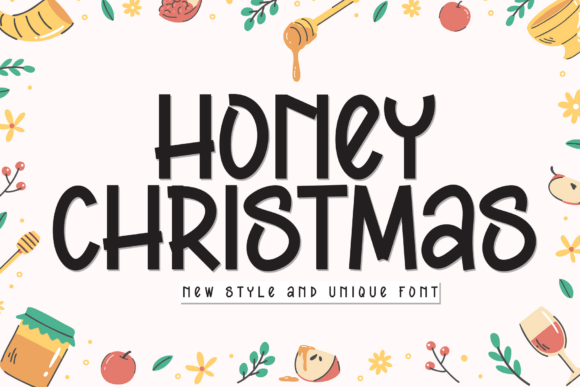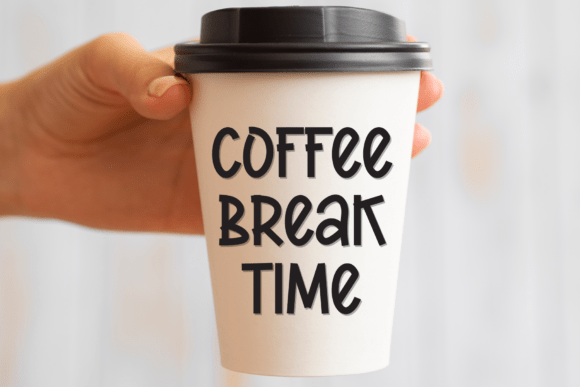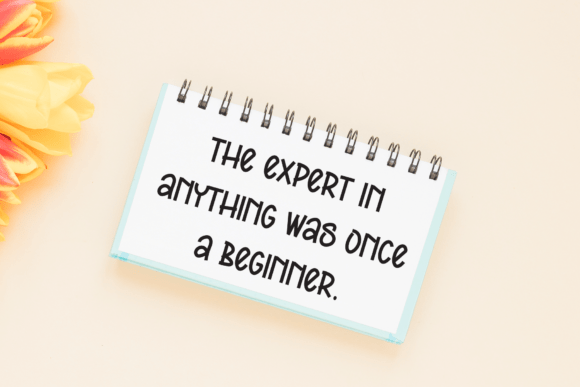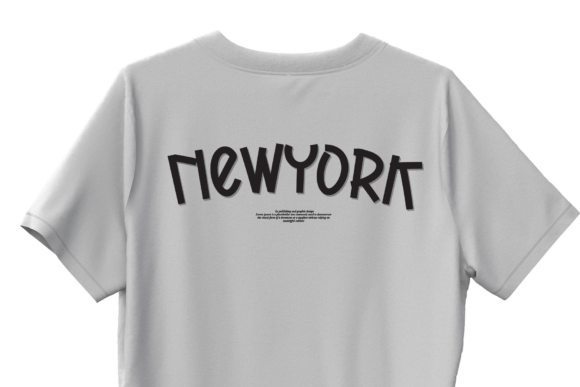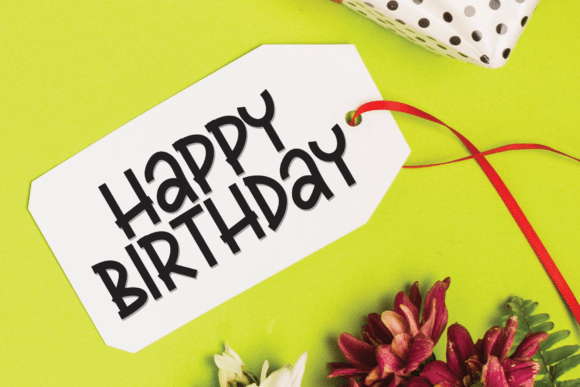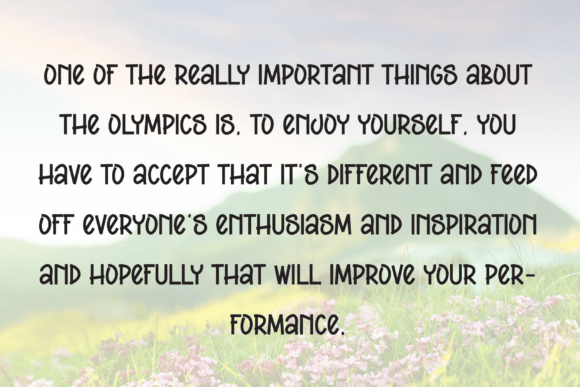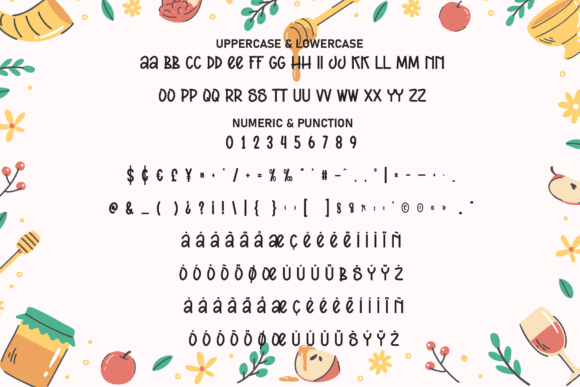
Get Ready to Sweeten Up Your Designs
It’s that time of the year when the air is filled with the sweet scent of creativity, and the world is bursting with festive cheer. As designers, we’re always on the lookout for that perfect font to capture the essence of the season, and this year, we’re excited to share with you the Honey Christmas Font.
This charming display font is the perfect blend of modern simplicity and playful charm, making it an ideal choice for posters, branding, packaging, and social media graphics. With its clean shapes, soft edges, and well-balanced letterforms, the Honey Christmas Font adds a fresh and friendly touch to any project, making it a valuable addition to any designer’s toolkit.
Honey Christmas Font Key Features
- Font Family: Honey Christmas, a festive and playful font
- Character Count: 256 characters, including uppercase and lowercase letters, numbers, and punctuation
- Unique Characteristics: Hand-drawn illustrations and ornaments, perfect for adding a personal touch to holiday designs
Honey Christmas Font Review
I recently had the chance to work with the Honey Christmas Font, and I must say it’s a delightful addition to any holiday-themed project. ✨ The font’s whimsical feel and festive aesthetic make it perfect for greeting cards, social media graphics, and even print materials. The included ornaments and decorations add an extra touch of magic, allowing designers to create visually appealing and cohesive designs.
One of the standout features of this font is its versatility. ✨ It can be used in a variety of contexts, from modern and sleek to traditional and vintage. The font’s bold lines and playful characters make it easy to customize and adapt to different design styles.
Limits and Challenges
- ⚠️ Limited character set: While the font includes a range of ornaments and decorations, the character set is relatively small, which may limit its use in longer blocks of text.
Overall, the Honey Christmas Font is a great choice for designers looking to add a touch of holiday cheer to their projects. With its unique aesthetic and versatility, it’s a great addition to any font collection. However, designers should be aware of the potential limitations and compatibility issues to ensure a smooth design process.
Use the Honey Christmas Font for creating festive and cozy designs for Christmas and winter-themed projects.
Pair it with other festive fonts and colors to create a cohesive look.
Experiment with different font sizes and styles to add visual interest.
The Honey Christmas Font is perfect for:
Christmas card designs
Winter-themed invitations
Holiday-themed social media posts
Cozy winter-themed book covers and interior designs
Great Vibes is a beautiful, elegant script font perfect for creating a warm and inviting atmosphere. It’s ideal for use in wedding invitations, greeting cards, and other festive designs. Compared to Honey Christmas Font, Great Vibes has a more refined and sophisticated look, making it suitable for more formal designs.
Pacifico is a modern, beach-inspired font that’s perfect for creating a relaxed and casual atmosphere. It’s ideal for use in beach-themed designs, summer promotions, and outdoor events. Compared to Honey Christmas Font, Pacifico has a more laid-back and effortless look, making it suitable for designs that require a carefree vibe.
Alex Brush is a elegant, handwritten font that’s perfect for creating a unique and personal touch. It’s ideal for use in wedding invitations, birthday cards, and other special occasion designs. Compared to Honey Christmas Font, Alex Brush has a more whimsical and artistic look, making it suitable for designs that require a touch of personality.
For optimal readability, we recommend using the Honey Christmas Font at a minimum size of 12 points and a line height of 1.5 to 2 times the font size. This will ensure the text remains clear and legible, especially in digital formats.